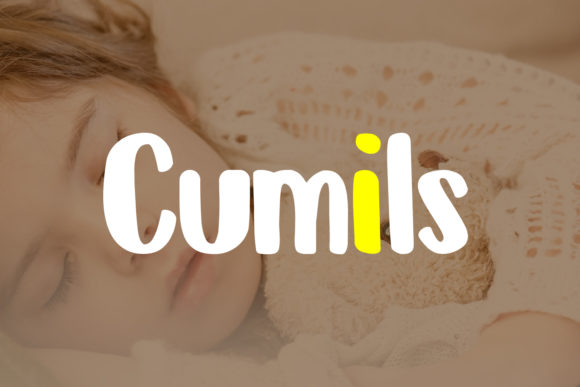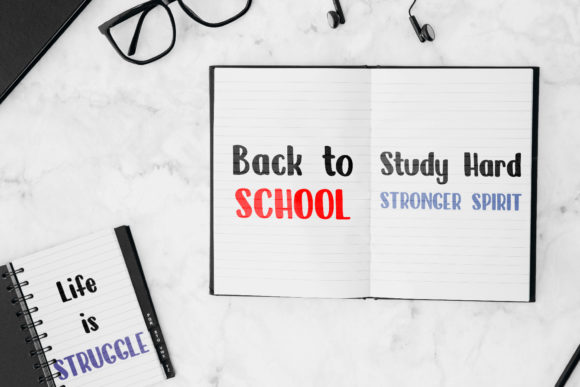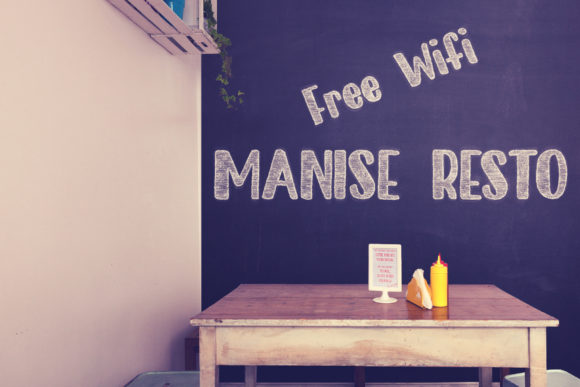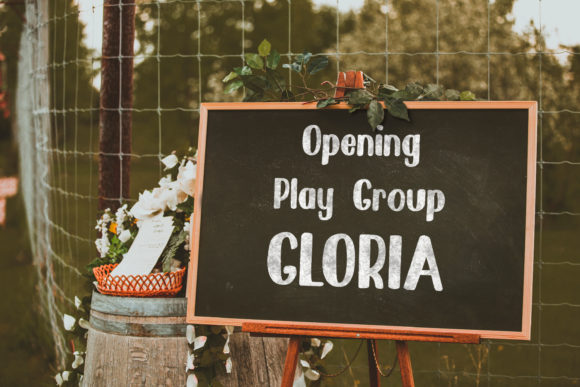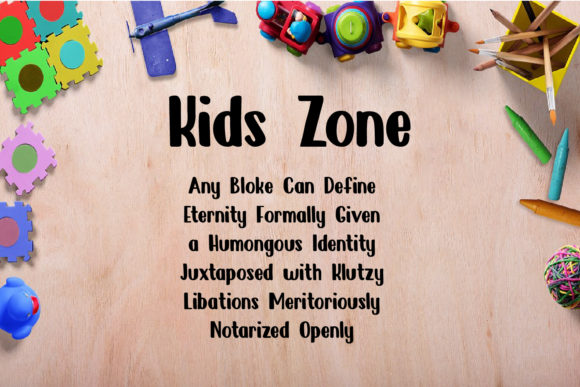
HomeScript FontsCumils Font Script Fonts Cumils Font FacebookXPinterestWhatsApp Cumils Font Poster 2 Cumils Font Poster 3 Cumils Font Poster 4 Cumils Font Poster 5 About Cumils Font Cumils is a fun and cool handwritten font with a simple vibe. Get inspired by its casual charm. DOWNLOAD NOW People also explored Headey Font Home Mine Font Simple Signature Capital Mizone Font Young Pink Font AmsterdaM Font Bitter Tea Font Herbs in Paradise Font 348 0 TagsCumils Font Previous articleTom Harvey FontNext articleBeyond Font LEAVE A REPLY Cancel reply Comment: Please enter your comment! Name:* Please enter your name here Email:* You have entered an incorrect email address! Please enter your email address here Website: Save my name, email, and website in this browser for the next time I comment. Personal Use Free Roustel Personal Use Free Read more about this font Rogueland Personal Use Free Read more about this font Mike Ferrari 16017 Personal Use Free Read more about this font Stone Garden Personal Use Free Read more about this font BLOG 5 Fonts That Will Dominate Design Trends in 2026 5 Fonts for 2026 That Will Dominate Design Trends Typography plays a critical role in visual communication, and as we look ahead to 2026, it’s... Best Fonts for YouTube Videos: Make Your Thumbnails Stand Out How to Cut Any Font on Cricut: Convert a Font to SVG (Free) Fonts That Capture the Spirit of New York City